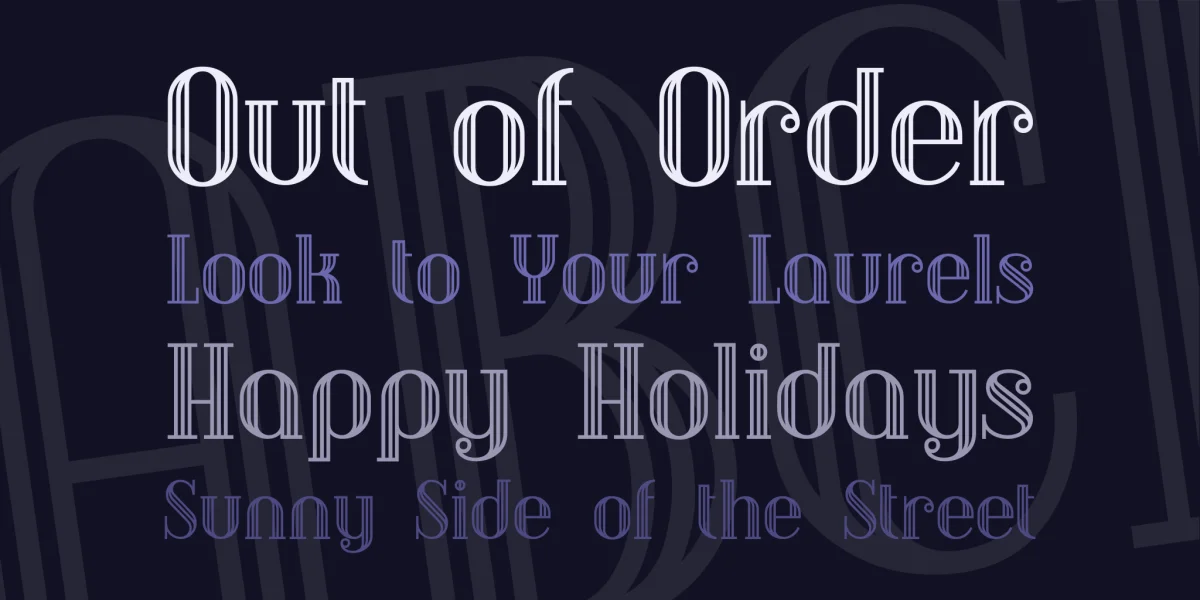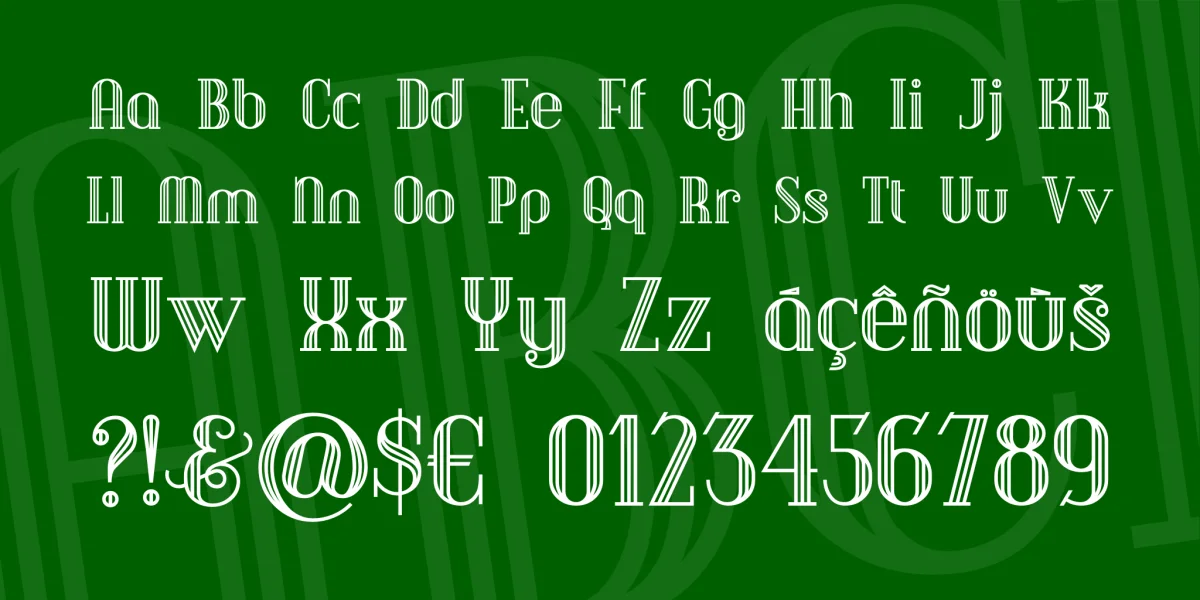
Here’s another gem from the book Art Deco Initials, which gave me a small handful of characters from which to divine the entire font. As I was constructing the font in outline form, I noticed how nicely it lent itself to an inline treatment, and decided to keep the structural elements. Later, I also noticed how well the lowercase-only font Bayer Architype went with these caps, so I adapted them to complete the character set.